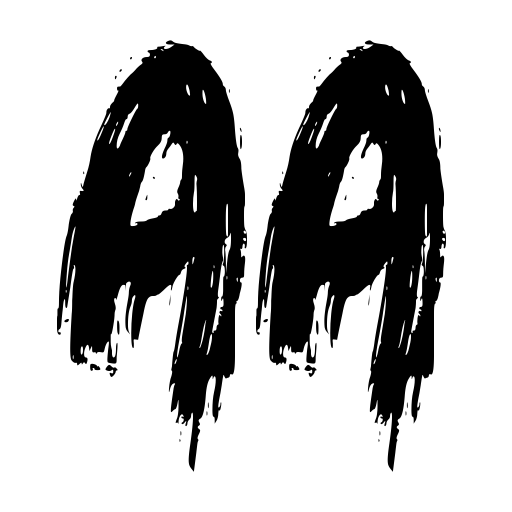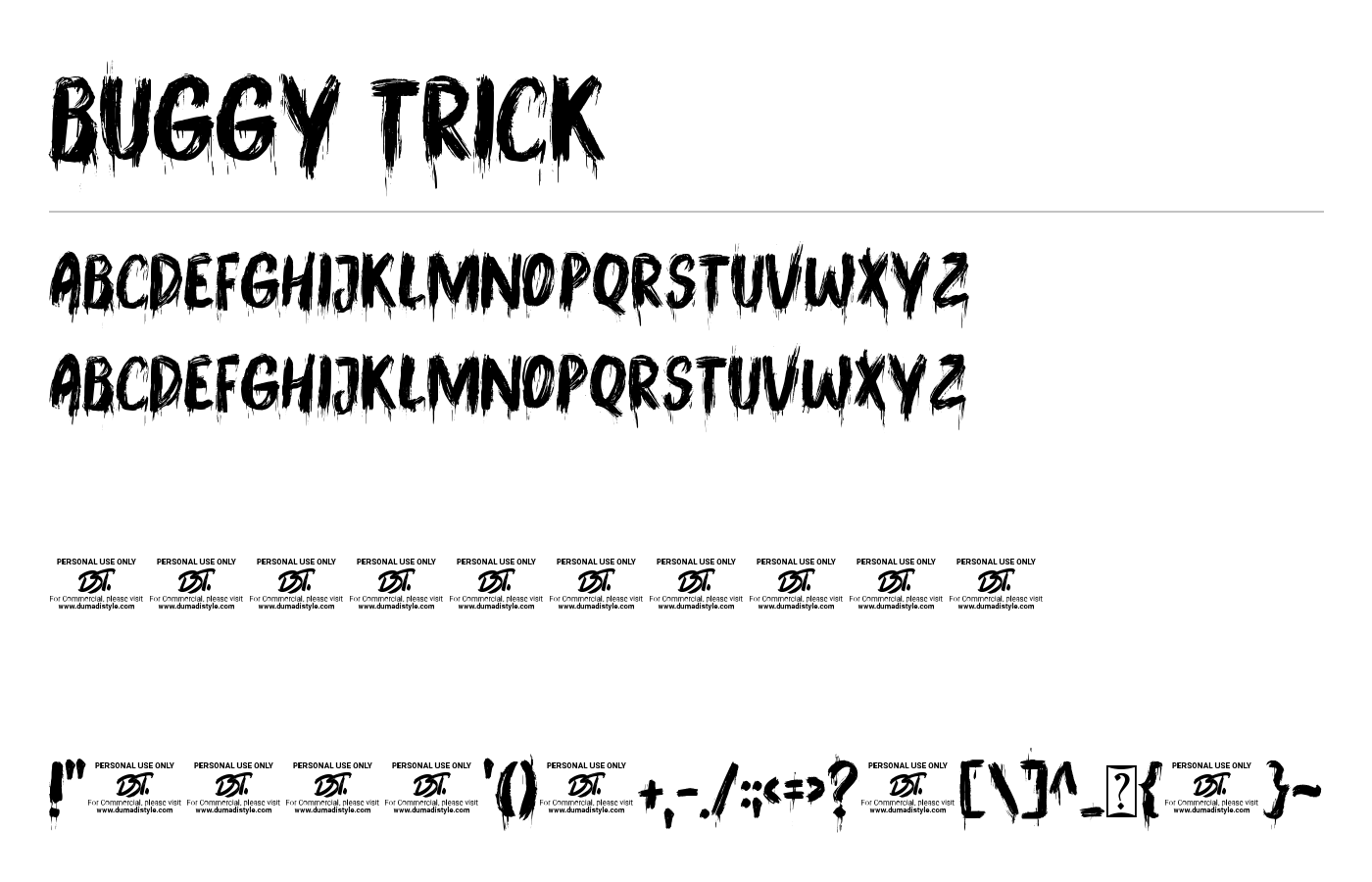
Buggy Trick is a bold, hand-drawn display font characterized by rough, textured strokes that create a striking, edgy look. With its irregular, dripping style and uppercase-only design, it brings a rebellious and dynamic energy, perfect for eye-catching posters, urban branding, or creative projects that want to convey a sense of raw, artistic expression.
Buggy Trick Font
About Buggy Trick Font
| Font family | Buggy Trick Font |
| Designer | Toni Dzulham |